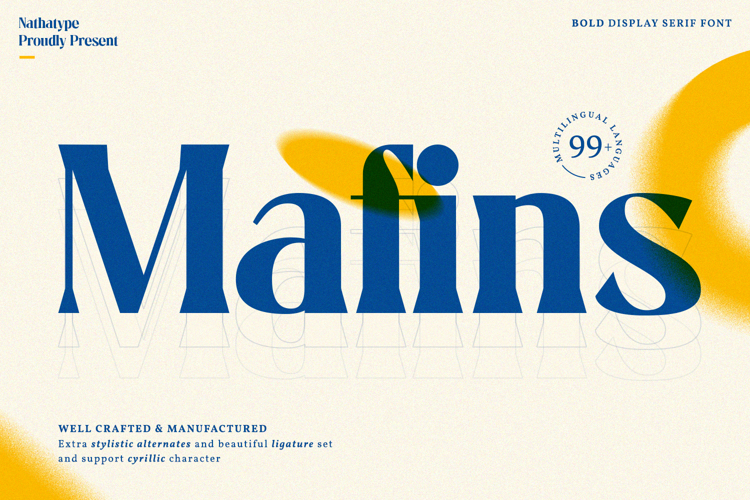
Mafins Font
Product Description:
Mafins is a combination font of thick display and serif fonts which is simply designed in formal, modern, elegant impressions like other serif fonts. The differences between the thick and thin lines on each character is dramatic and the letters’ edges have small hooks for a legibility reason.
Features:
• Ligatures
• Stylistic Sets
• Multilingual Supports
• Numerals and Punctuations